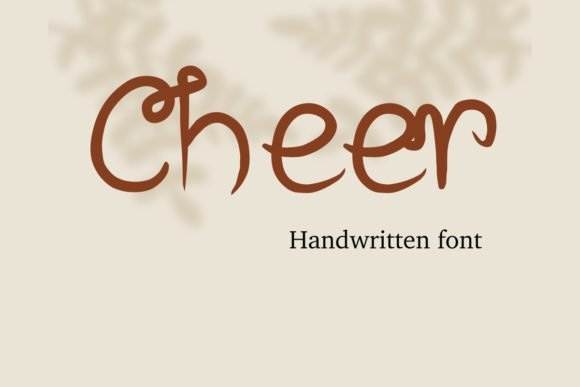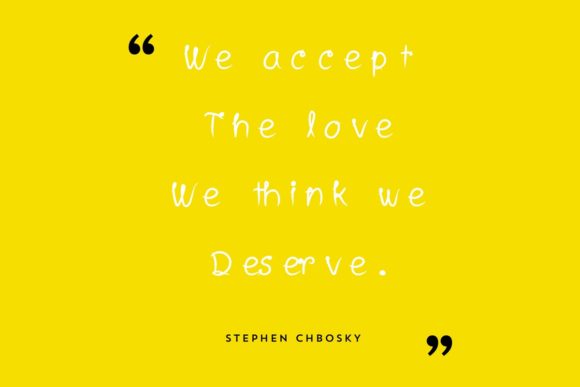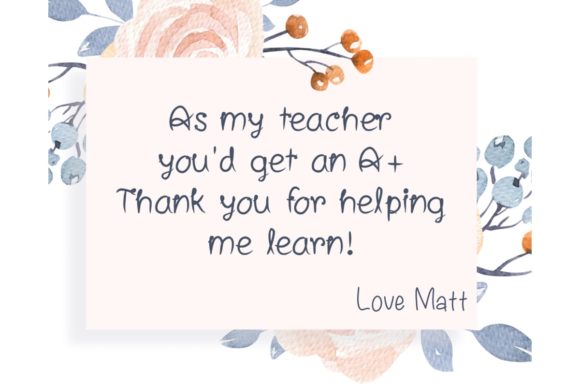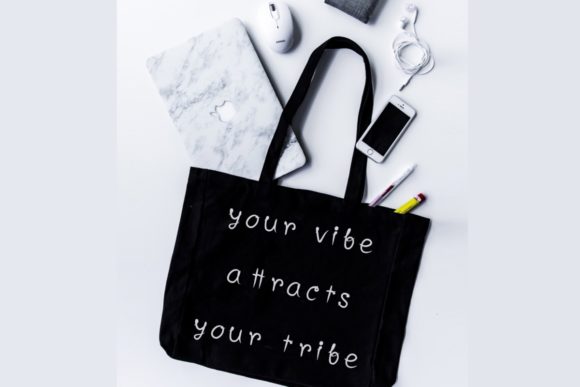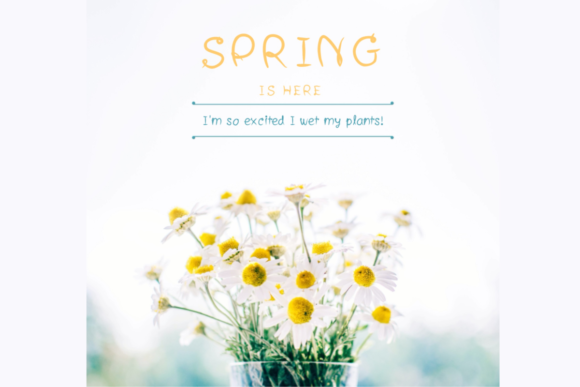
Adding a Personal Touch to Your Designs
Have you ever stared at a blank page, waiting for inspiration to strike? Maybe it’s a design project that’s been lingering in your to-do list, or a social media post that needs a little extra oomph. Whatever it is, we’ve all been there – searching for that one thing to make our creations truly special.
That’s where the Cheer Font comes in – a delightful, handwritten font that adds a playful touch to any design. With its unique script elements and cute aesthetic, it’s the perfect way to inject some personality into your work. Whether you’re a seasoned designer or just starting out, the Cheer Font is an invaluable addition to your toolkit.
So, why is the Cheer Font so valuable? For one, it’s incredibly versatile – use it for invitations, quotes, or even branding. Its playful vibe is sure to capture attention and leave a lasting impression.
Cheer Font Key Features
- Font Family: Cheer is a sans-serif font family, designed for use in digital media and print.
- Font Size: Cheer font family includes font sizes ranging from 8 to 72 points, with precise control over line height and spacing.
- Resolution: Designed for use at high resolutions (up to 300 DPI), making it ideal for digital displays and large-format printing.
- Unique Characteristics: Cheer font features a bold, energetic feel with rounded edges and a subtle flair at the terminals.
- Font Styles: Includes 6 font styles: Regular, Italic, Bold, Bold Italic, Light, and Light Italic, providing flexibility for a wide range of applications.
Designer Review: Cheer Font
Overall, I think the Cheer Font has a lot of potential, but it’s not without its flaws.
- ✨ The font’s playful, cursive style is perfect for adding a touch of whimsy to digital and print projects.
- ✨ The font’s uppercase letters are quite elegant and could be used for headings or titles.
- ✨ The font’s lowercase letters are quite readable, making it suitable for body text.
- ⚠️ The font’s bold weight is a bit inconsistent, which can make it look a bit messy.
- ⚠️ The font’s italic weight is not as smooth as I’d like, which can make it difficult to read.
- ⚠️ The font’s limited character set can make it challenging to use for more complex projects.
I would recommend the Cheer Font for projects where a playful, cursive style is desired. However, I would caution against using it for more complex projects or for projects where a high level of consistency is required.
The Cheer Font is ideal for creating playful, energetic, and motivational designs. Use it for:
- Event invitations and announcements
- Social media graphics and posts
- Business branding and marketing materials
- Education and training materials
Tips for Getting the Most Out of Cheer Font
To get the most out of the Cheer Font, try:
- Using bold and italic styles to add emphasis
Alternatives to Cheer Font
Great Vibes Font is a modern, elegant script font perfect for creating a friendly and approachable atmosphere. It is ideal for use in logos, signage, and advertisements where a touch of sophistication is required.
Compared to Cheer Font, Great Vibes Font has a more refined and polished look, making it suitable for high-end designs. It lacks the bold, playful feel of Cheer Font but offers a more subtle and refined alternative.
Pacifico Font is a beautiful, handwritten font that exudes a sense of relaxation and calmness. It is perfect for use in designs that require a touch of serenity, such as wellness websites, spa branding, and travel brochures.
Compared to Cheer Font, Pacifico Font has a more laid-back and casual feel, making it ideal for designs that require a relaxed and peaceful atmosphere. It lacks the bold, energetic feel of Cheer Font but offers a more soothing alternative.
Dancing Script Font is a lively, energetic script font that is perfect for creating a fun and playful atmosphere. It is ideal for use in designs that require a touch of whimsy, such as children’s products, party invitations, and social media graphics.
The recommended font size for optimal readability with the Cheer Font is between 12pt and 18pt. This range provides a clear and legible display of text, while also maintaining the font’s aesthetic appeal. However, font size may vary depending on your specific design requirements and target audience.